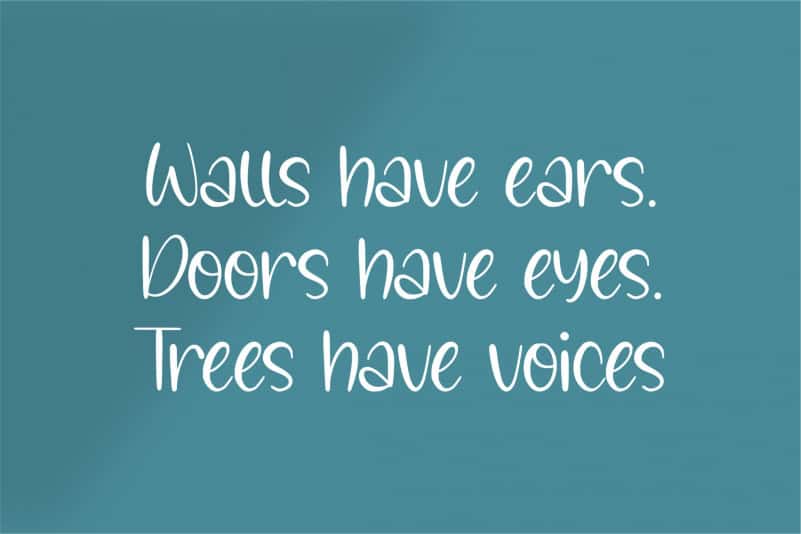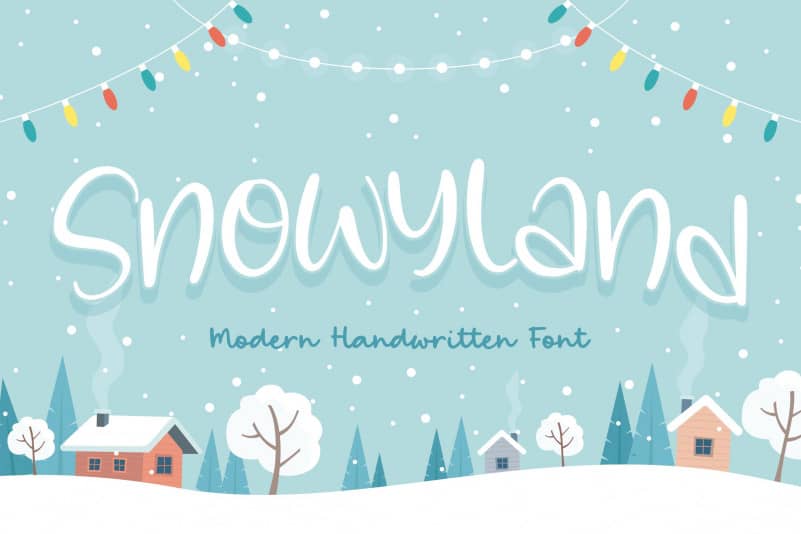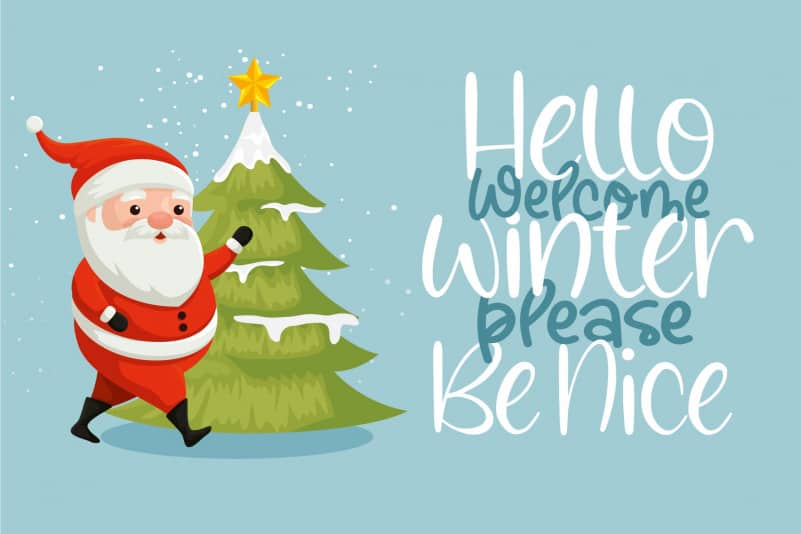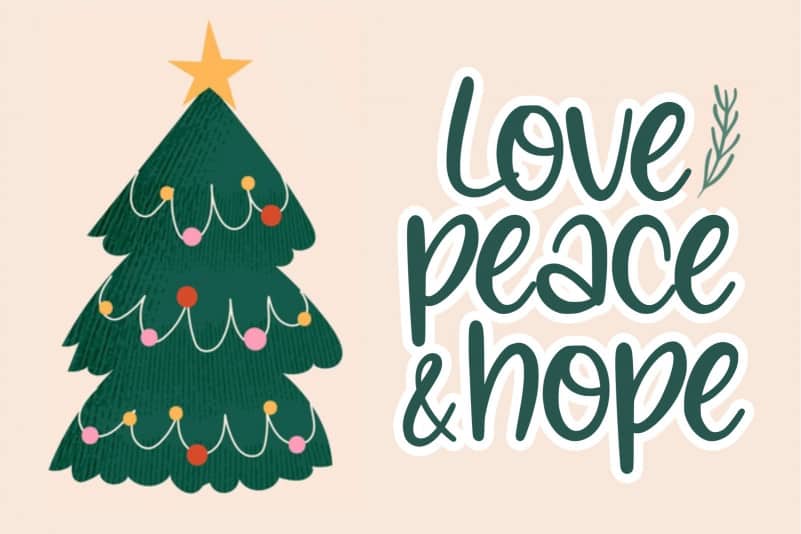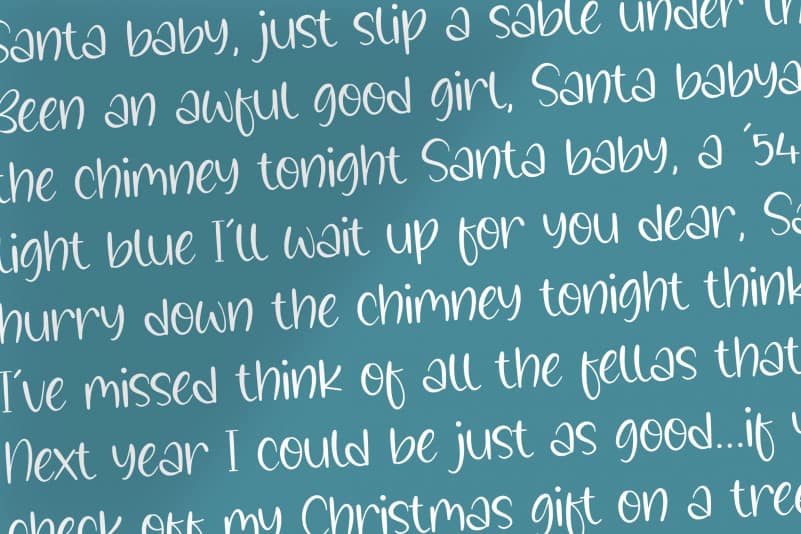
Snowyland Modern Handwritten Font
Proudly Present, Snowyland Modern Handwritten Font.
Snowyland is a Modern Handwritten Font.
It’s  perfect for product packaging, branding project, megazine, social media, wedding, or just used to express words above the background.